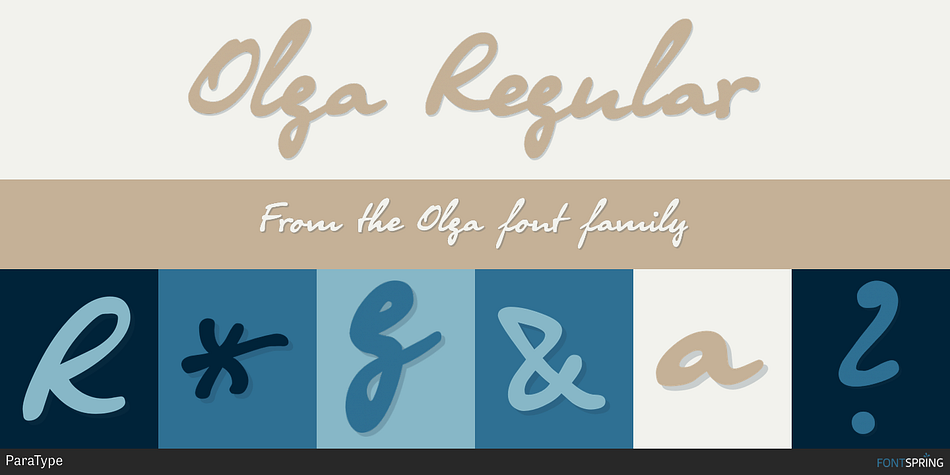
Olga Regular
Designed by Tagir Safayev and Gennady Fridman, Olga is a script font published by ParaType.
Designed at ParaType (ParaGraph) in 1995 by Tagir Safayev. Based on informal pen handwriting. A set of Western and Central European characters was added in 2011 by Gennady Fridman. For use in advertising and display typography.
Designers Tagir Safayev, Gennady Fridman